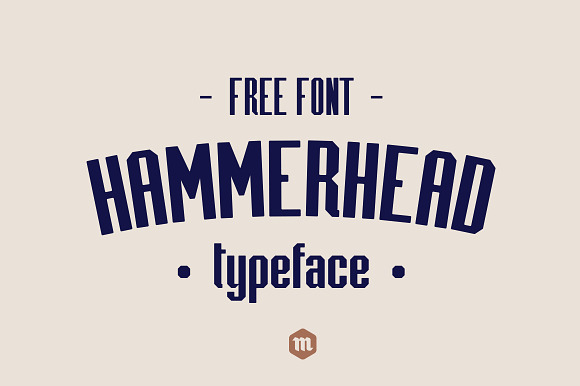
Hammerhead Typeface | Font
This powerful typeface is perfect for construction companies, industrial brands, heavy machinery, tool manufacturers, marine equipment, shark-themed projects, extreme sports, metalworking shops, and aggressive design applications.
What makes this font exciting is its hammer-strike force combined with predatory precision, offering designers a dominating typeface that captures the raw power of industrial strength while delivering shark-like intensity and unforgiving mechanical sophistication.
The Hammerhead font family includes regular, bold, heavy, industrial, and impact variations, providing complete power design solutions for creating dominant industrial visual identities.
Whether you're developing heavy industry brands or crafting powerful mechanical experiences, Hammerhead Typeface Font Free Download brings exceptional industrial atmosphere and predatory authenticity to every application. This forceful typeface combines construction typography with contemporary power design, creating letterforms that command respect and demonstrate unstoppable force. The font's industrial construction and power-ready details make it perfect for brands seeking immediate strength recognition.
Hammerhead Typeface Font features carefully engineered industrial styling with authentic mechanical character that conveys genuine power expertise. Each character has been designed with heavy-duty proportions and predatory elements that enhance the dominant aesthetic. The font's industrial qualities make it particularly effective for construction companies and heavy machinery applications.
Professional designers choose Hammerhead Typeface Font for projects requiring authentic industrial credibility and powerful atmosphere. Its mechanical heritage makes it exceptionally well-suited for tool manufacturers, construction firms, and strength-focused lifestyle brands. The font's versatile power variations allow designers to control the industrial intensity, from subtle mechanical elegance to full hammerhead domination.
The complete Hammerhead Typeface Font package offers extensive industrial ornaments and mechanical decorative elements that enhance the powerful aesthetic. Advanced impact features allow designers to create complex industrial effects with multiple strength-inspired options. This comprehensive power toolkit ensures designers have everything needed to create authentic industrial communications that celebrate the relentless force of mechanical precision and predatory business dominance.